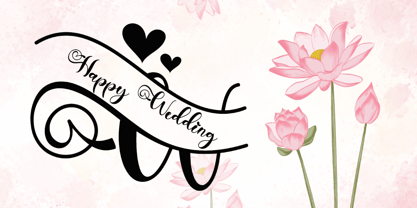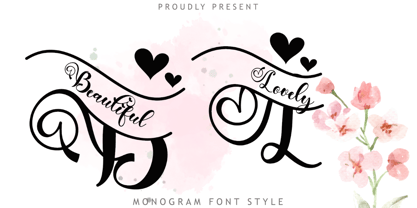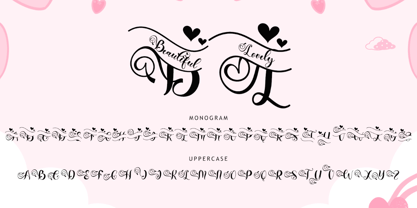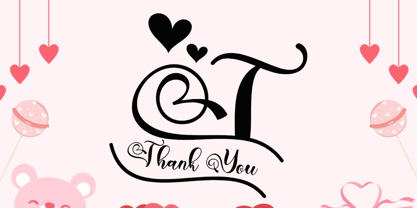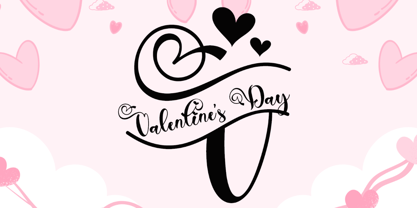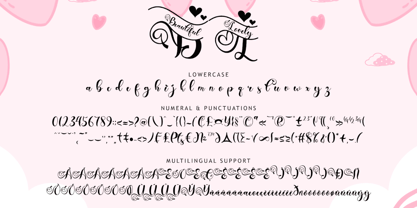
Beautiful Lovely Style
by Yoga Letter
The Beautiful Lovely Style Font Family was designed by Isroni Yoga Prasetya and published by Yoga Letter. Beautiful Lovely Style contains 2 styles and family package options.
"Beautiful Lovely Monogram" is a beautiful monogram font. It comes with capital letters, lowercase letters, numbers, punctuation, and multilingual support. It is perfect for wedding, birthday, valentine, thanksgiving, invitation, photography, holiday, print, banner, poster, and more.